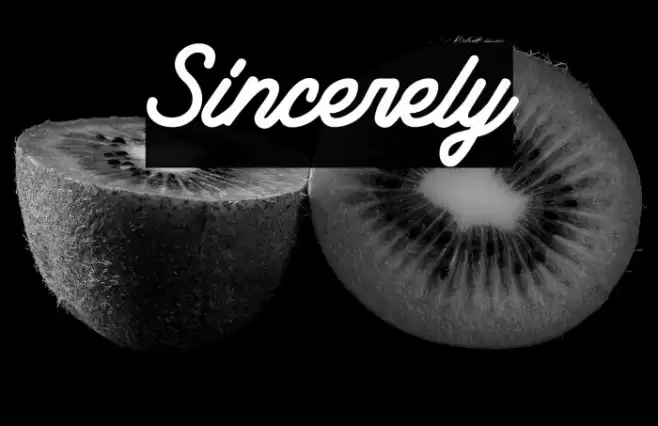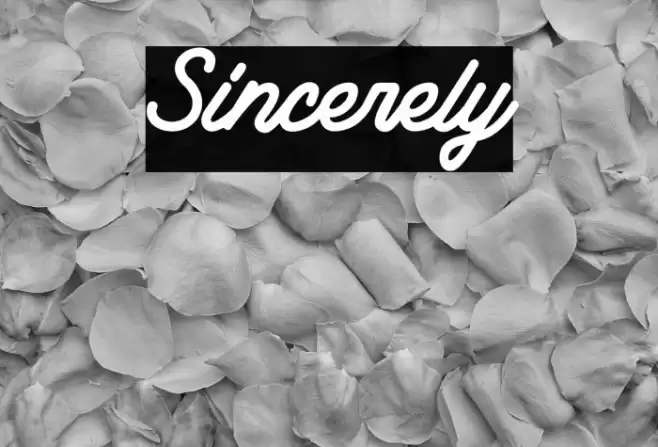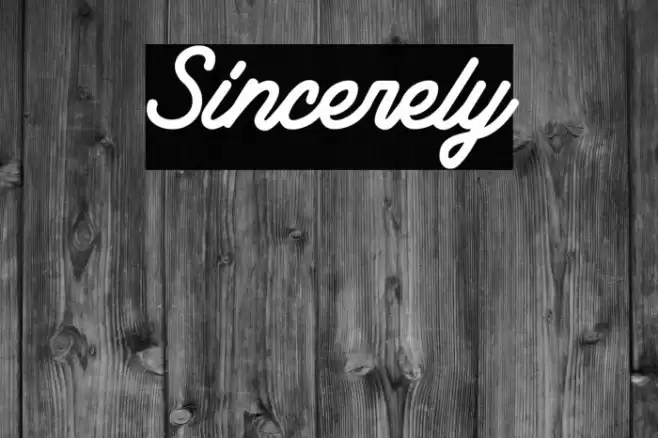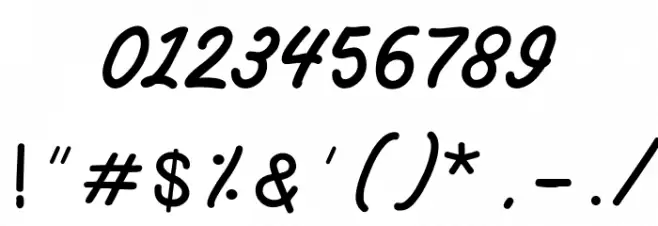
Sincerely Font
Sincerely Description
This font features a flowing, cursive style with smooth, connected strokes that give it a handwritten appearance. The uppercase letters are elegantly looped, while the lowercase letters maintain a consistent flow, enhancing readability. The numerals are bold and clear, matching the overall style of the letters. Special characters are designed with the same fluidity, ensuring a cohesive look across all symbols. The font's design is both stylish and legible, making it suitable for a variety of creative applications.
A flowing, cursive font with a handwritten appearance and smooth, connected strokes from Regular fonts.
- Proposed Projects: Ideal for wedding invitations, greeting cards, personal branding, and decorative signage.
- Use Case: Logos, Headlines, Decorative text